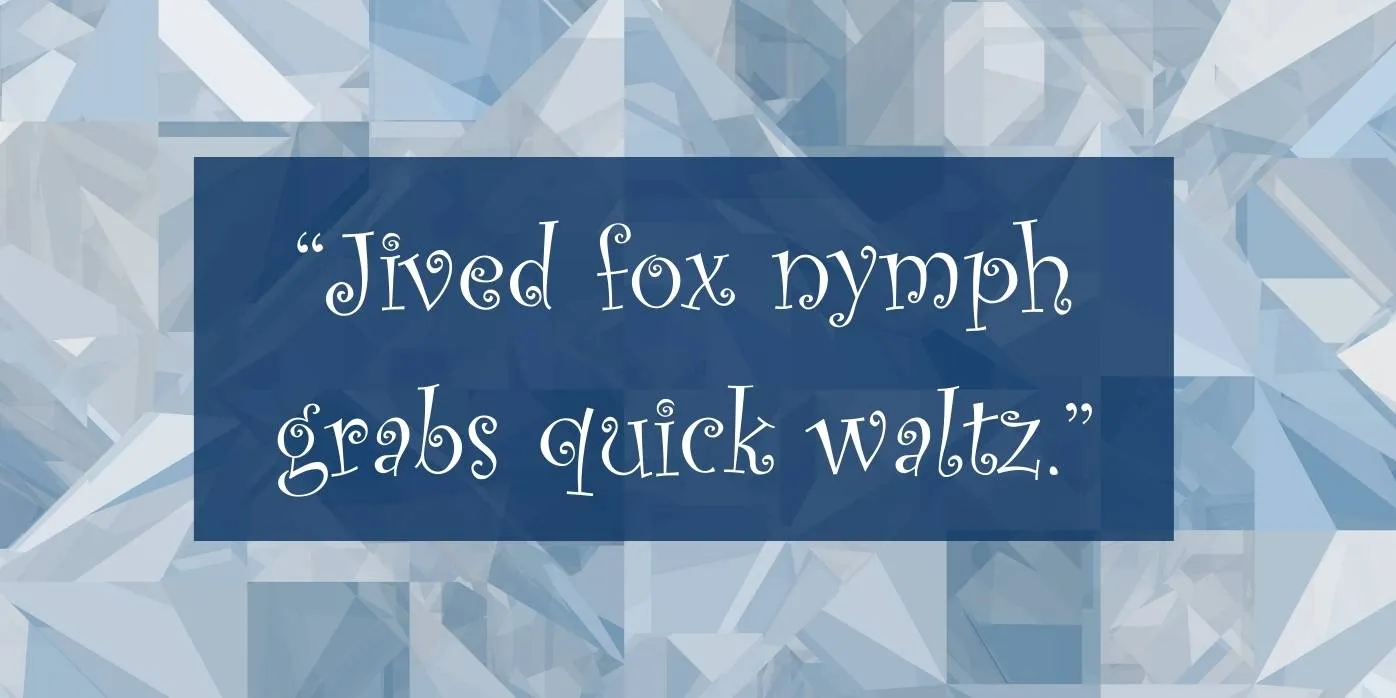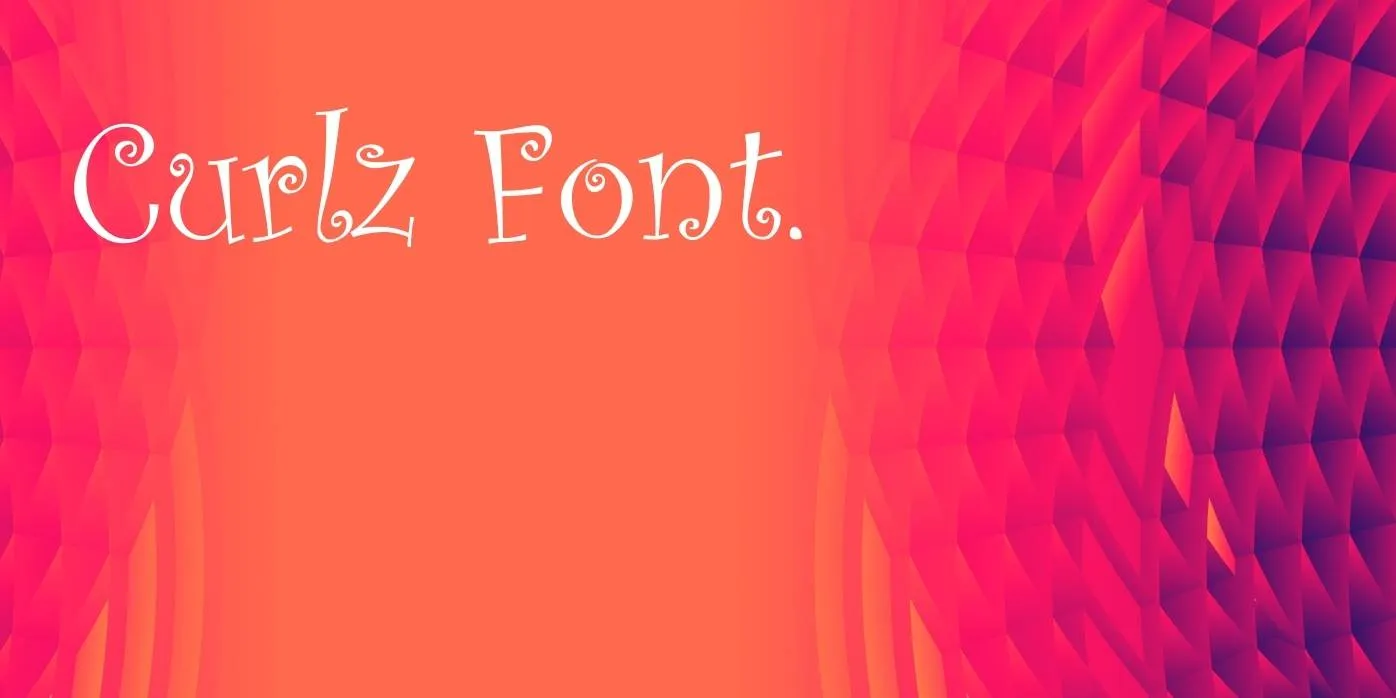
Curlz Font
Here we are introducing a most stylish and famous typeface that was popular with the name Curlz Font. This tremendous font family belongs to the Display typeface. This marvelous font family was designed by soo much tough working of two excellent designers Carl Crossgrove and Steve Matteson. In the year 1995, This classy font family was released for the first time.
This cozy typeface was released by the very famous Agfa Monotype foundry. This stylish font family looks like a metal-type shape. It has been twisted and bent easily. This classy and clean font family comes in two unique styles.
These styles increase its overall performance and make your product designs more attractive. This glorious font family supports a great number of international languages almost more than 81. You can use it for different designs according to your own interest. Freshman Font is a very famous and alternative font to this typeface.